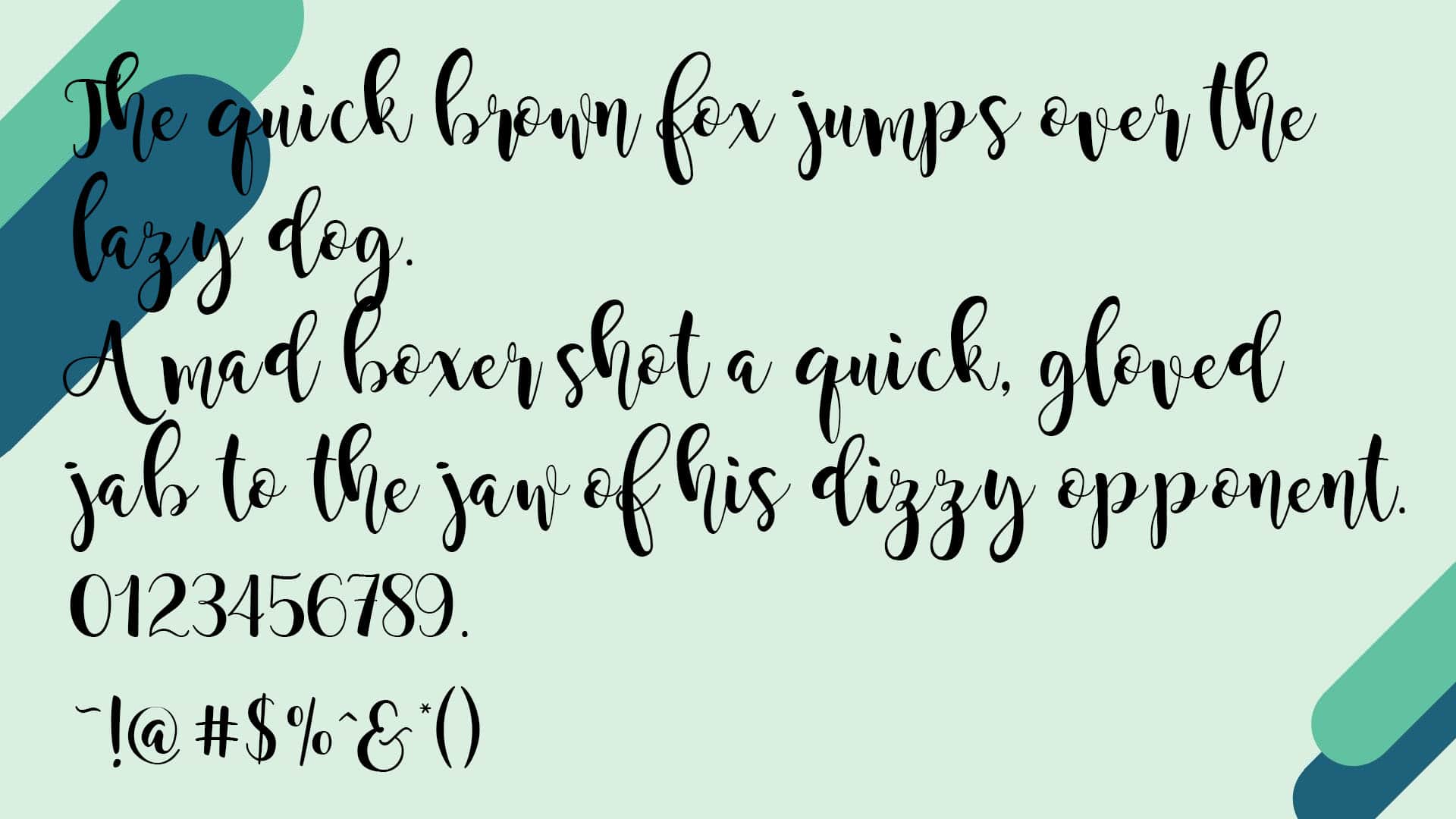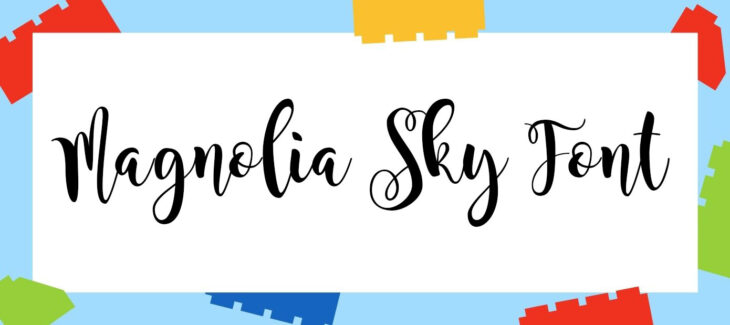
Here we give you an interesting hand-written and brush style typeface named Magnolia Sky font. This typeface is belonging to the Script typeface font family. This beautiful and stylish typeface is created by StereoType. This Script typeface works on all platforms, including Linux, iOS, PC, Mac, and Android.
Who Used Magnolia Sky Font?
This writing style is using by many users all around the world in their many projects and designs. This typeface is also extensively using for heading reasons in personal essays, presentations, designs, and websites, among other things. Youtubers are also using this font for creating thumbnails for their channels.
This typeface has a lot of extravagant bold texture designs that aren’t appropriate for official documents. It is very close to the core sans font. This font style is also using to make invitation cards, banners, and broachers, among other things. This typeface is using in many sophisticated presentations.
It’s a fancy art-type font texture that is using in a variety of commercial applications. Creating T-shirt designs, banners, and other art projects are some of my favorite things to do. Youtubers are also using this font to create thumbnails for their channels.
Magnolia Sky Font Family Appearance
| Name | Magnolia Sky Font |
| Designer | StereoType |
| Date Released | 2016 |
| Category | Script |
FAQs about Magnolia Sky Font!
What type of font Magnolia Sky Font is?
This Font is the part of Script Typeface family. This amazing and stylish font is designed and released by StereoType in 2016.
Is there any font similar to the Magnolia Sky Font?
This typeface is similar to a number of other fonts. The magneto font, on the other hand, is the most similar to this material. As a result, it is using as a substitute for this font style.
Can I use Magnolia Sky Font for websites?
This typeface has an elegant and eye-catching design. Yes, you can use this typeface to make your website look more attractive.